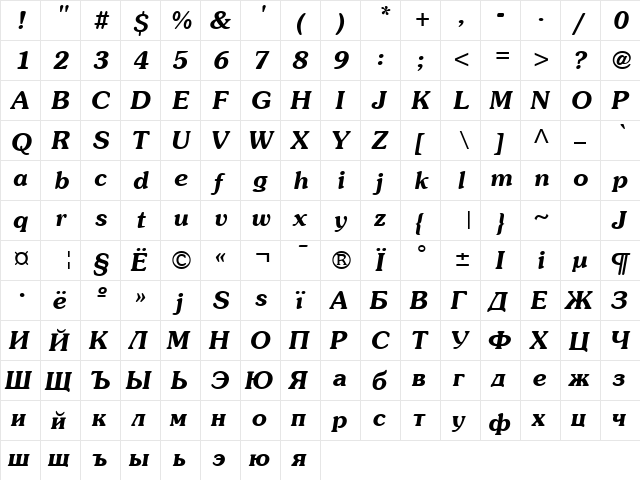
AGPresquire Bold Oblique
Design Context for AGPresquire Typeface
AGPresquire is a composed and adaptable typeface that performs quietly and consistently across a wide range of design contexts. Its italic angle brings a sense of urgency and motion to the letterforms. Its bold stroke weight gives it real presence on the page.
Pro Tip: Use AGPresquire for emphasis, pull quotes, and subheadings where its slanted energy can add rhythm to the layout.